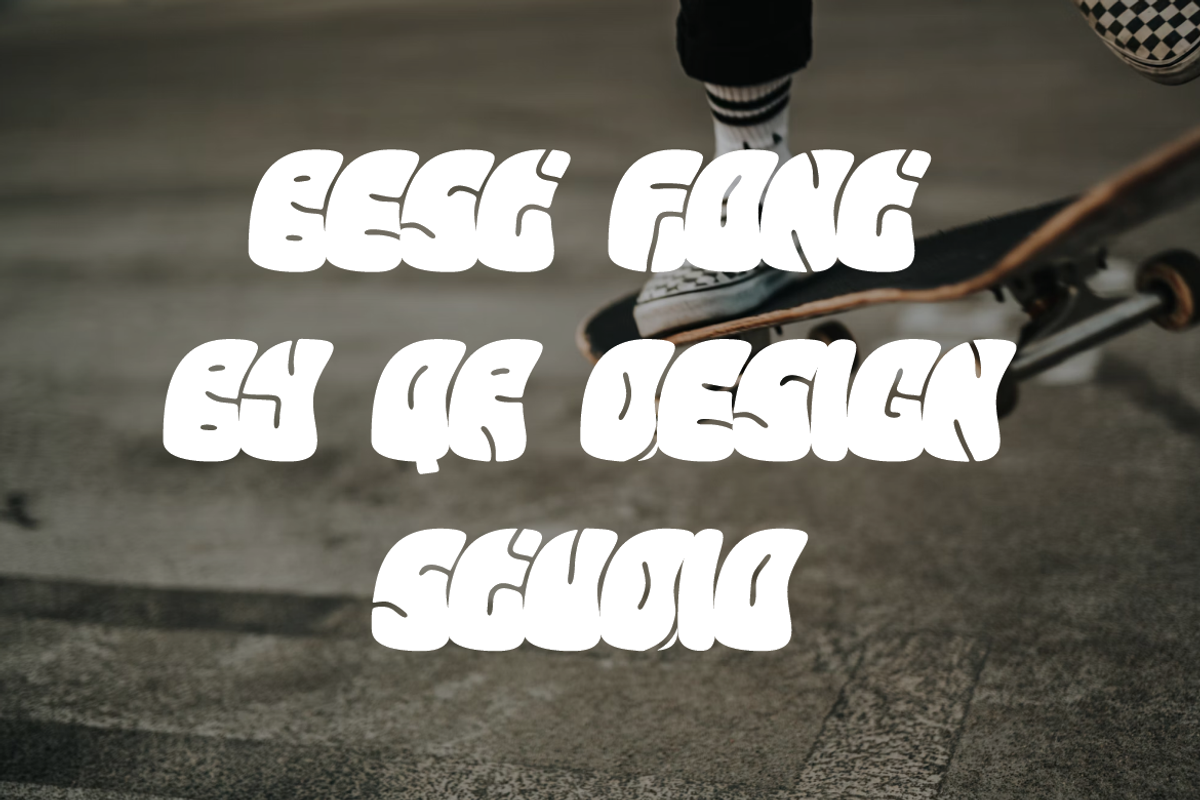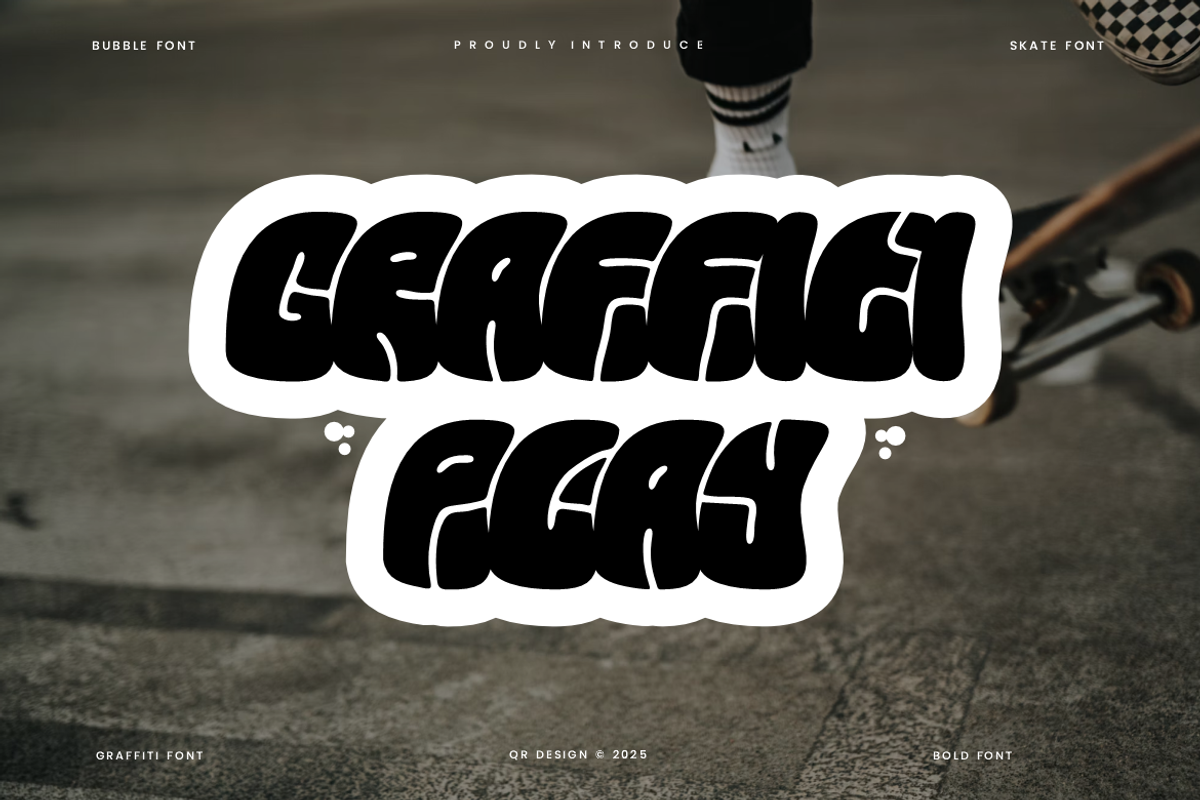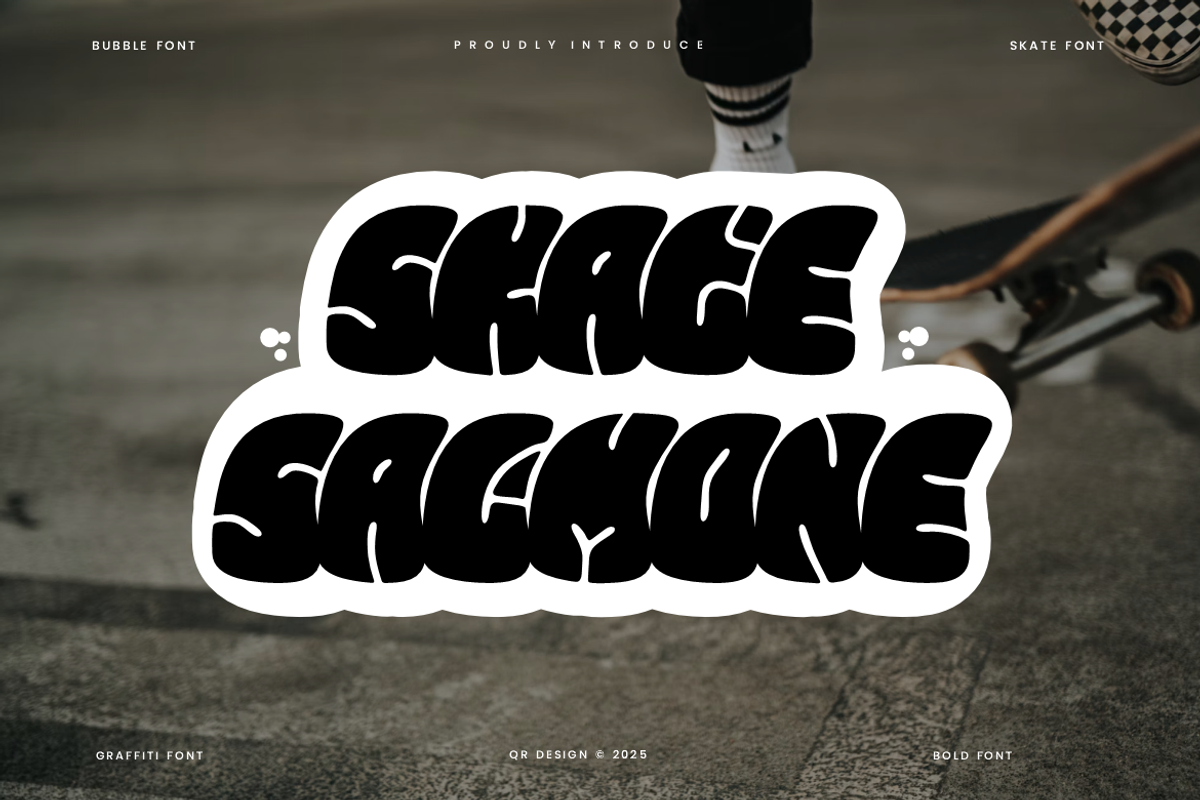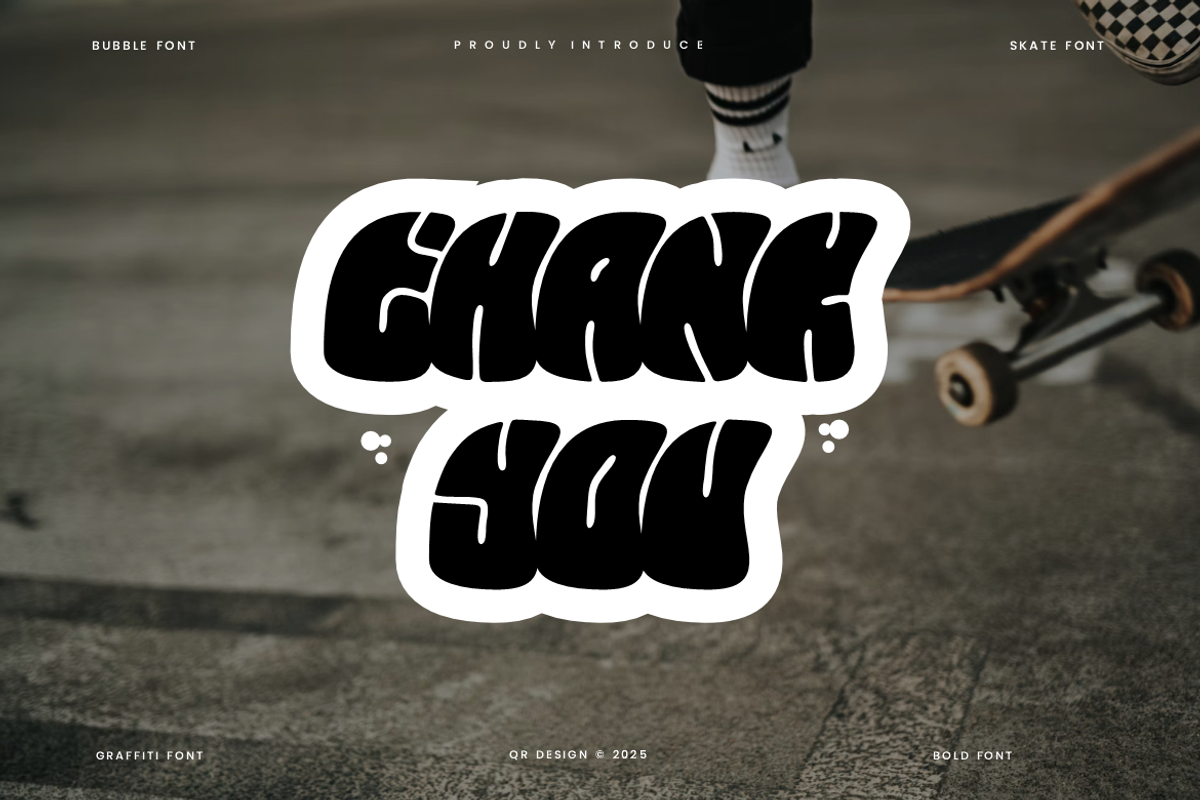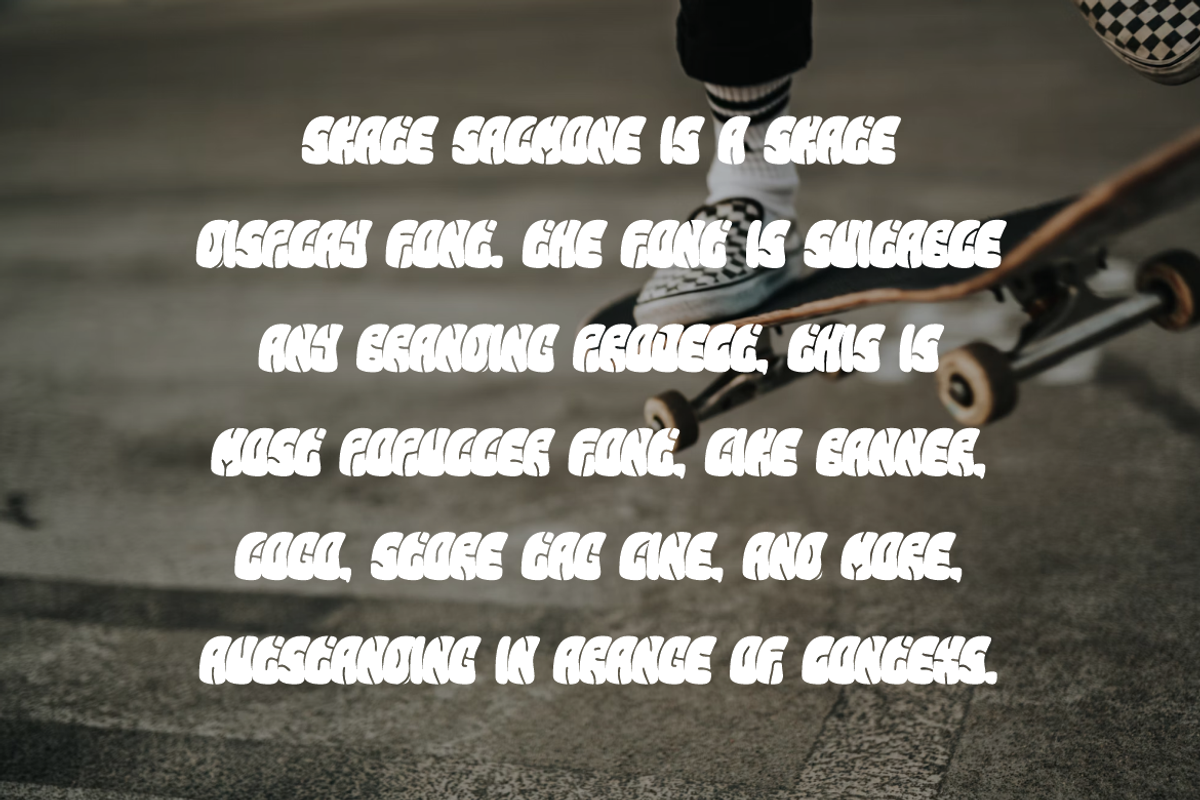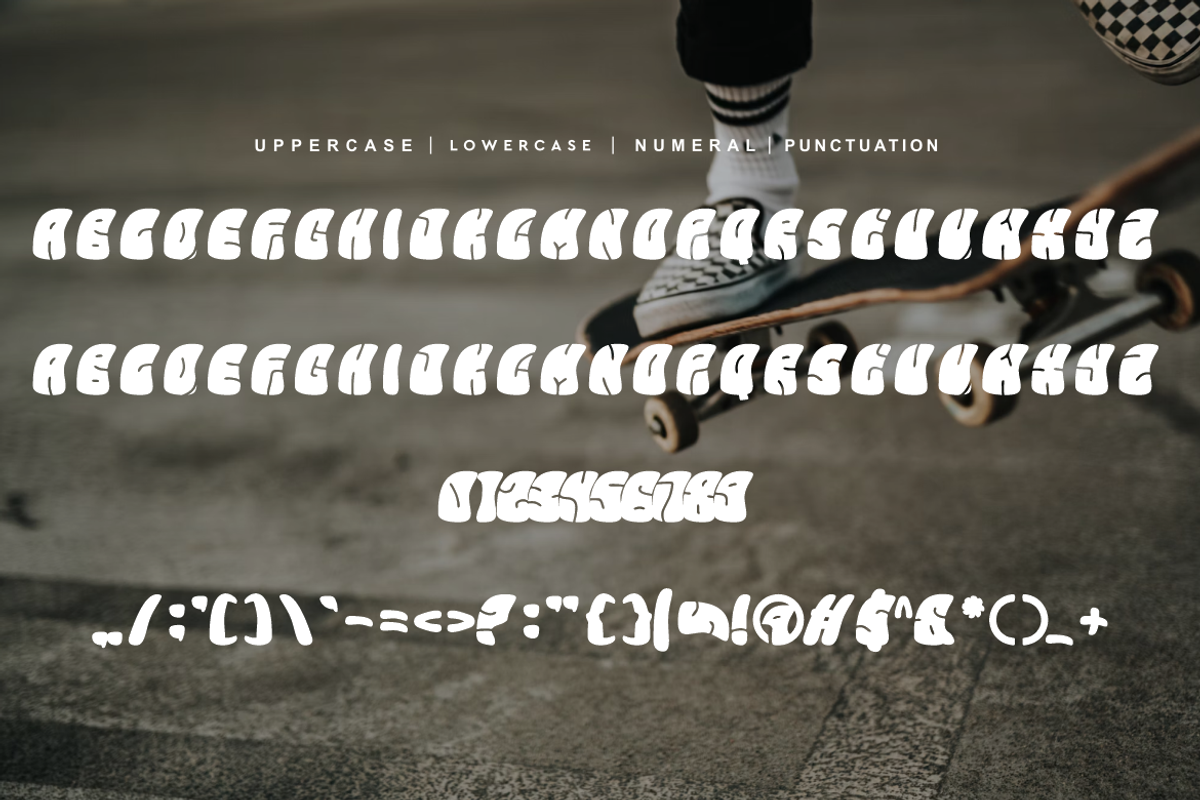
Skate Salmone - Bubble Graffiti Font
Skate Salmone - Bubble Graffiti Font is a bold and authentic display font. The font is suitable for any branding project like poster, logo, sport, and many more. Outstanding in a wide range of contexts.